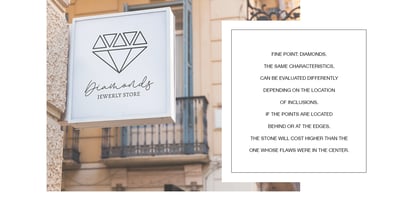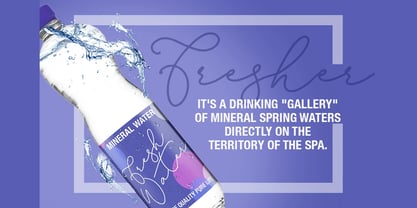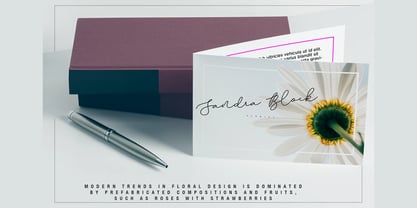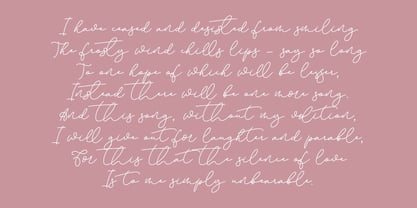
Last Factory
The Last Factory Font Family was designed by Alexander Tiunov and published by BestTypeCo. Last Factory contains 1 styles.
Last Factory - a new fresh handmade calligraphy font.
Very suitable for greeting cards, branding materials, business cards, quotes, posters, and more!This font are perfect for wedding postcard. Or you can create perfect and unique design of your logo, blog, stationery, marketing, magazines and more :)
Features :
• UpperCase & Lowercase
• Numerals & Punctuations
• Multilingualcharacters(AÀÁÂÃÄÅCÇDÐEÈÉÊËIÌÍÎÏNÑOØÒÓÔÕÖUÙÜÚÛWYÝŸŸ ÆŒßÞàáâãäåæçèéêëìíîïðñòóôõöøùúûüýÿ)
• LIGATURES